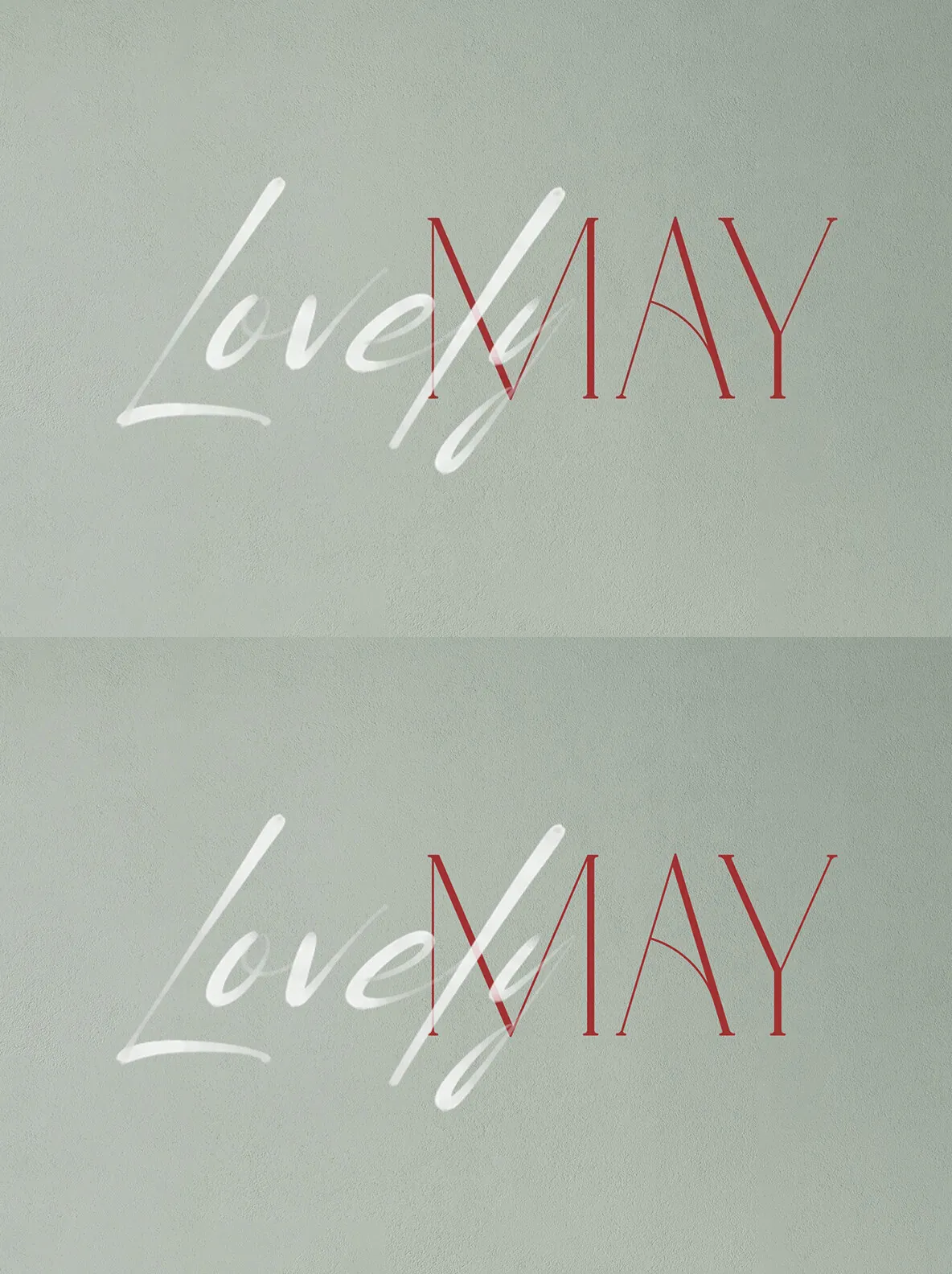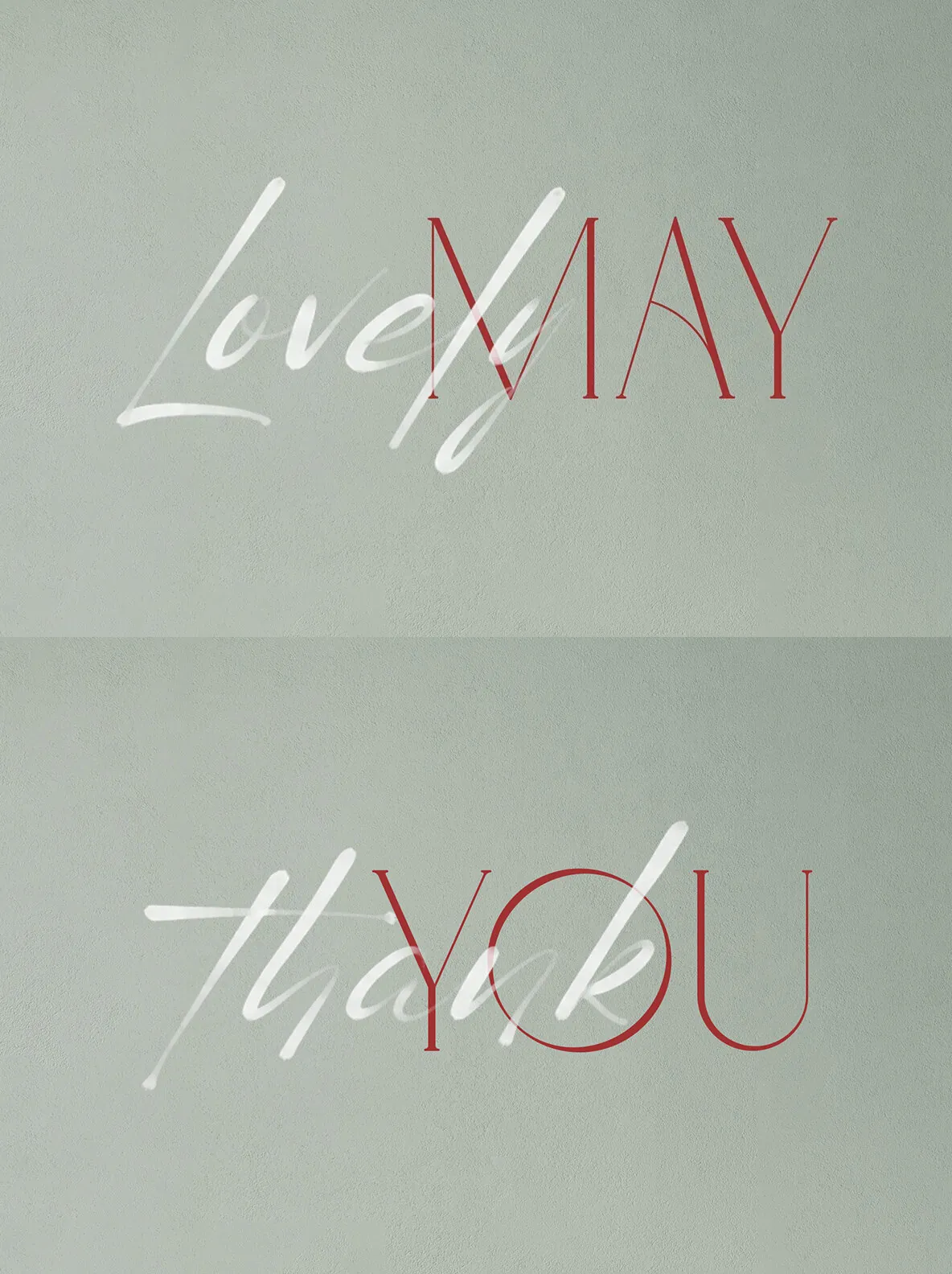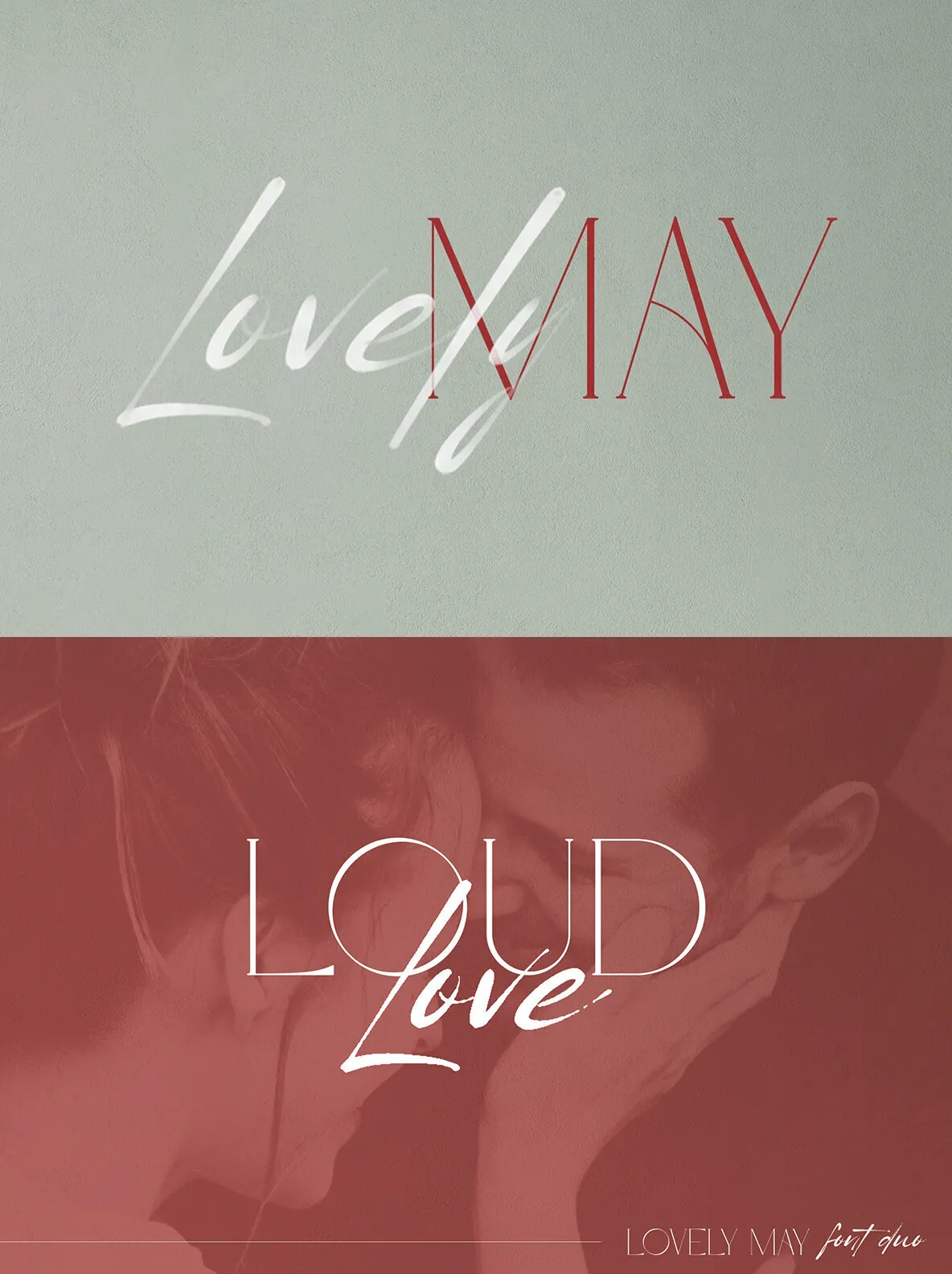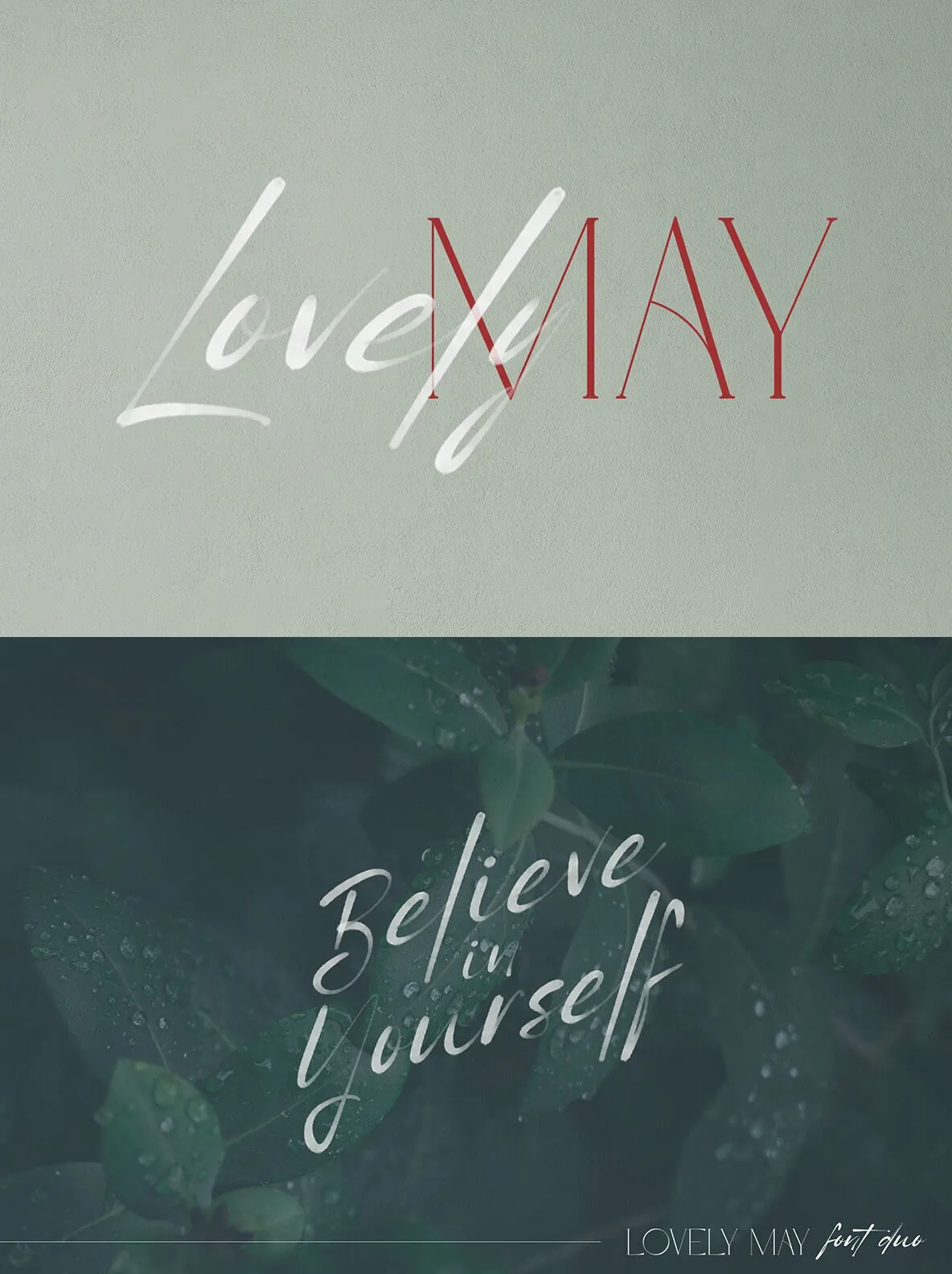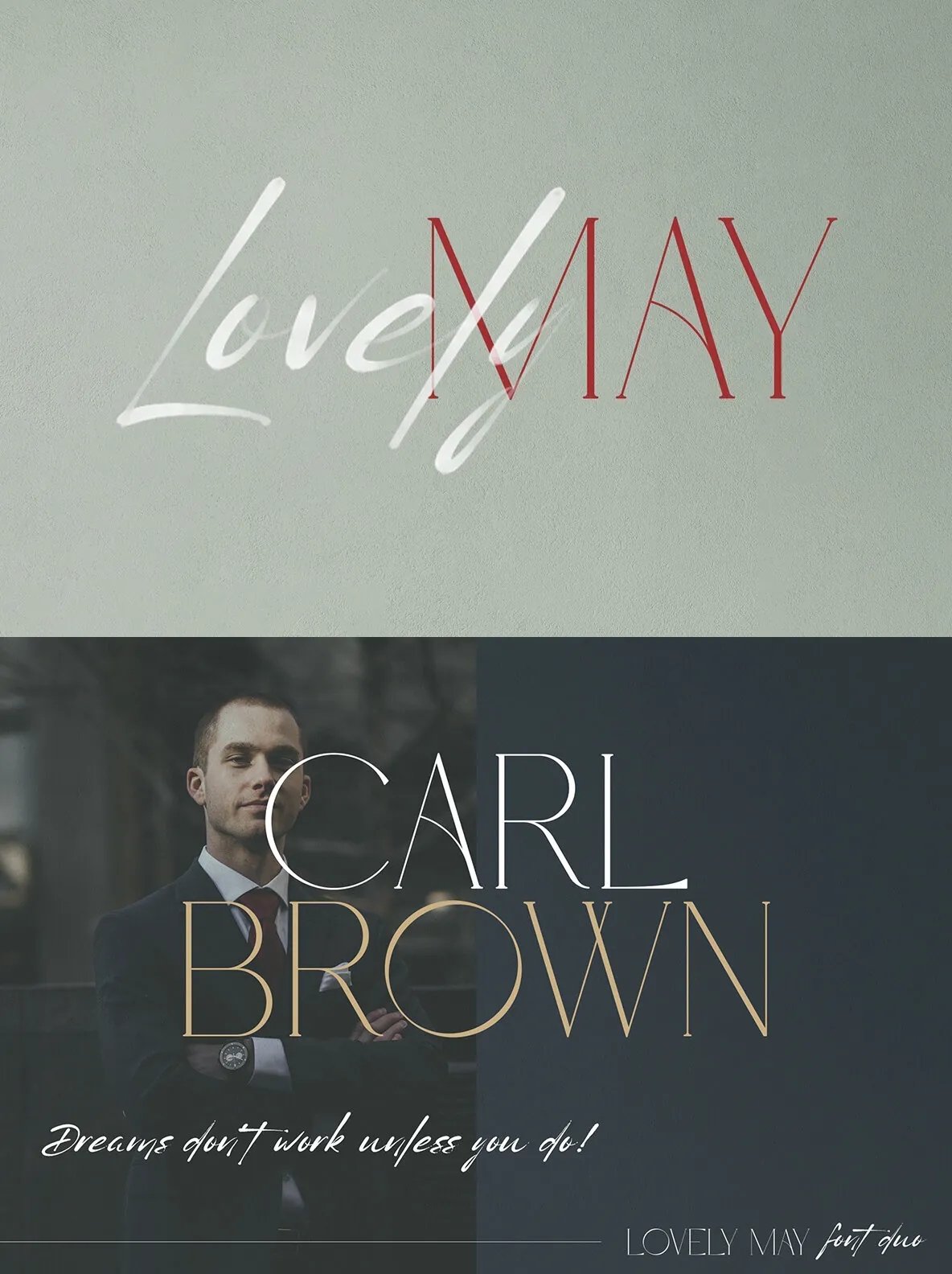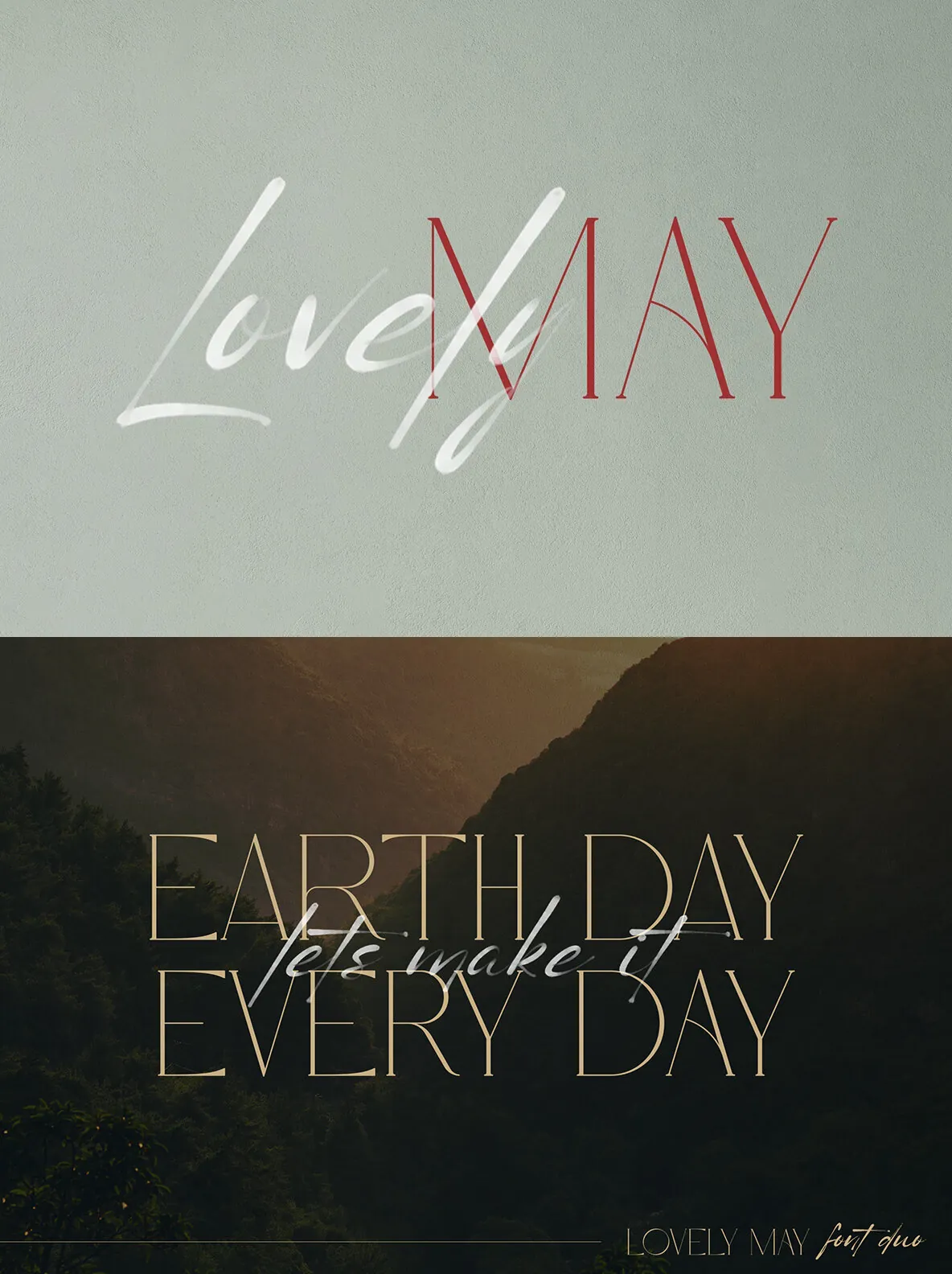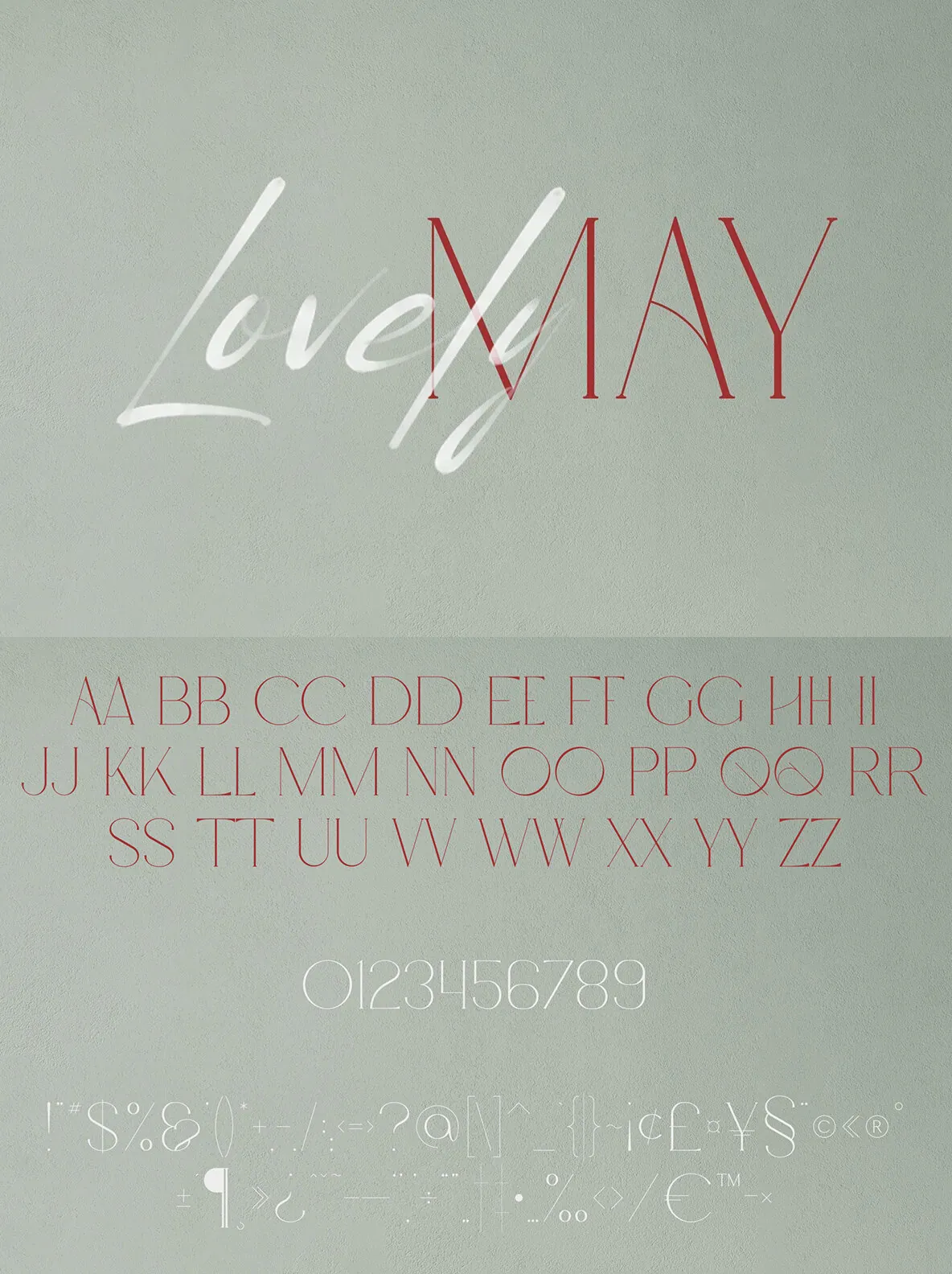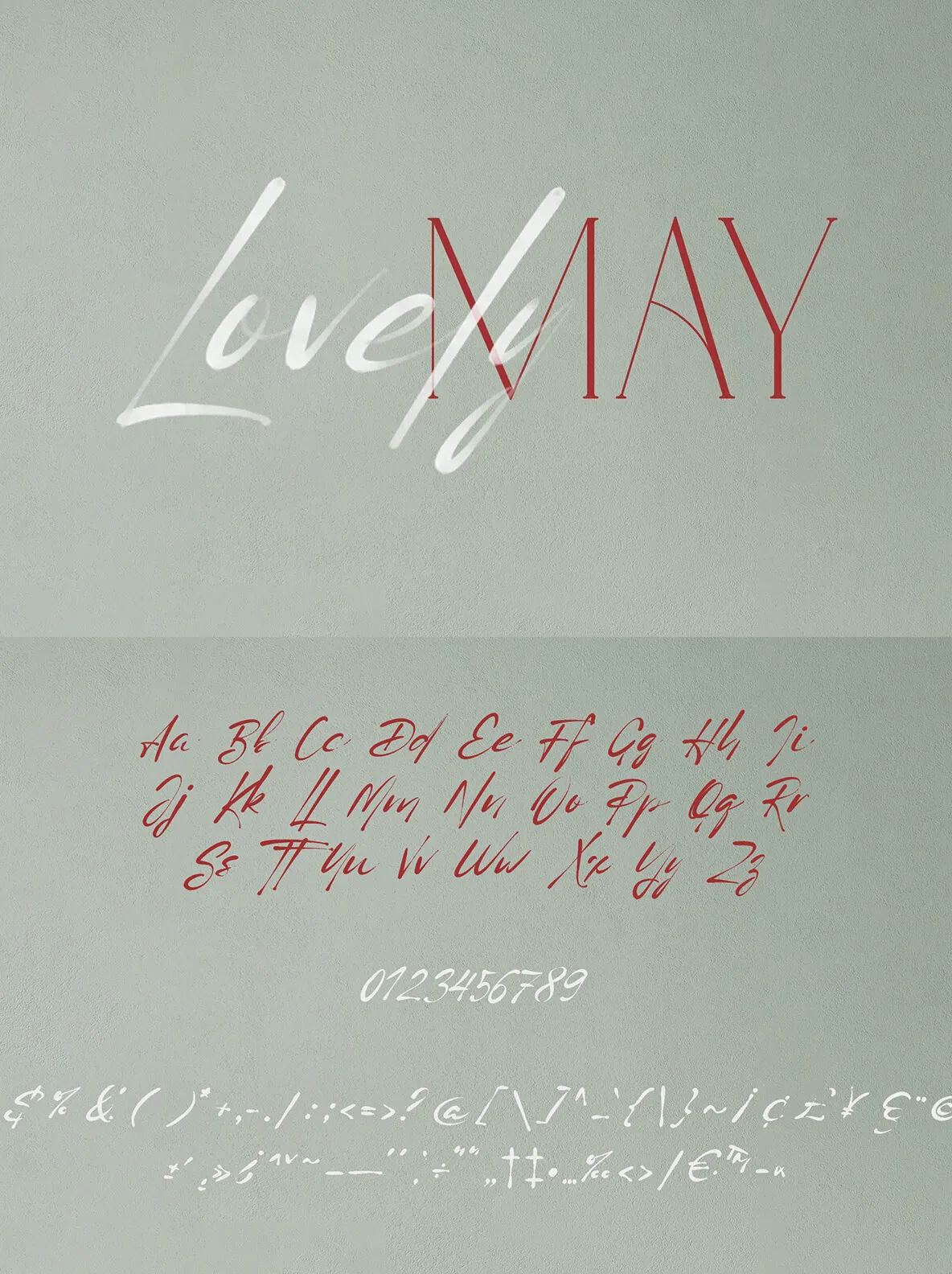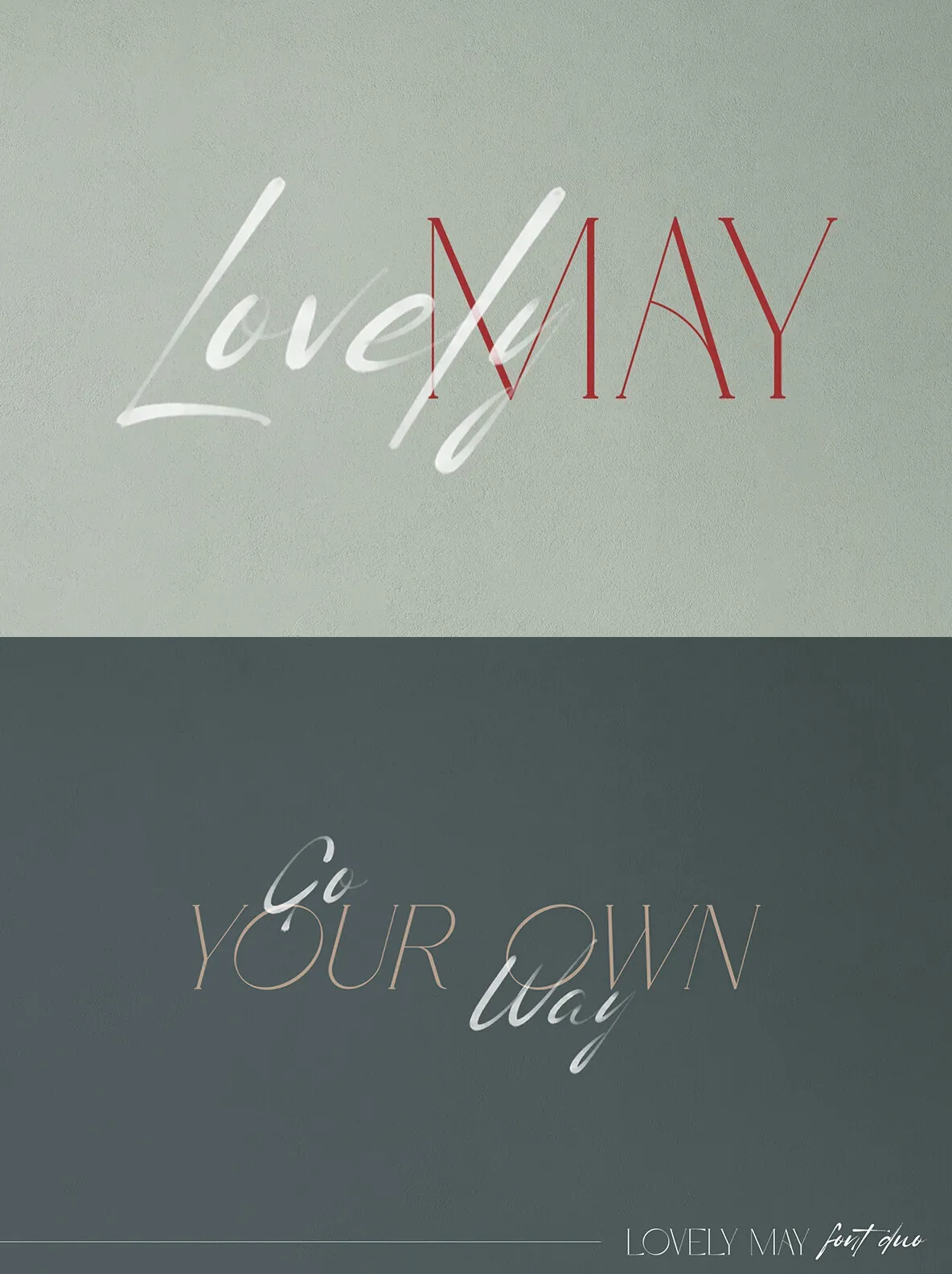
This elegant serif font boasts high contrast and refined letterforms, ideal for luxury branding and sophisticated editorial layouts. Its timeless style and modern touch make it perfect for projects demanding a classic yet contemporary aesthetic.